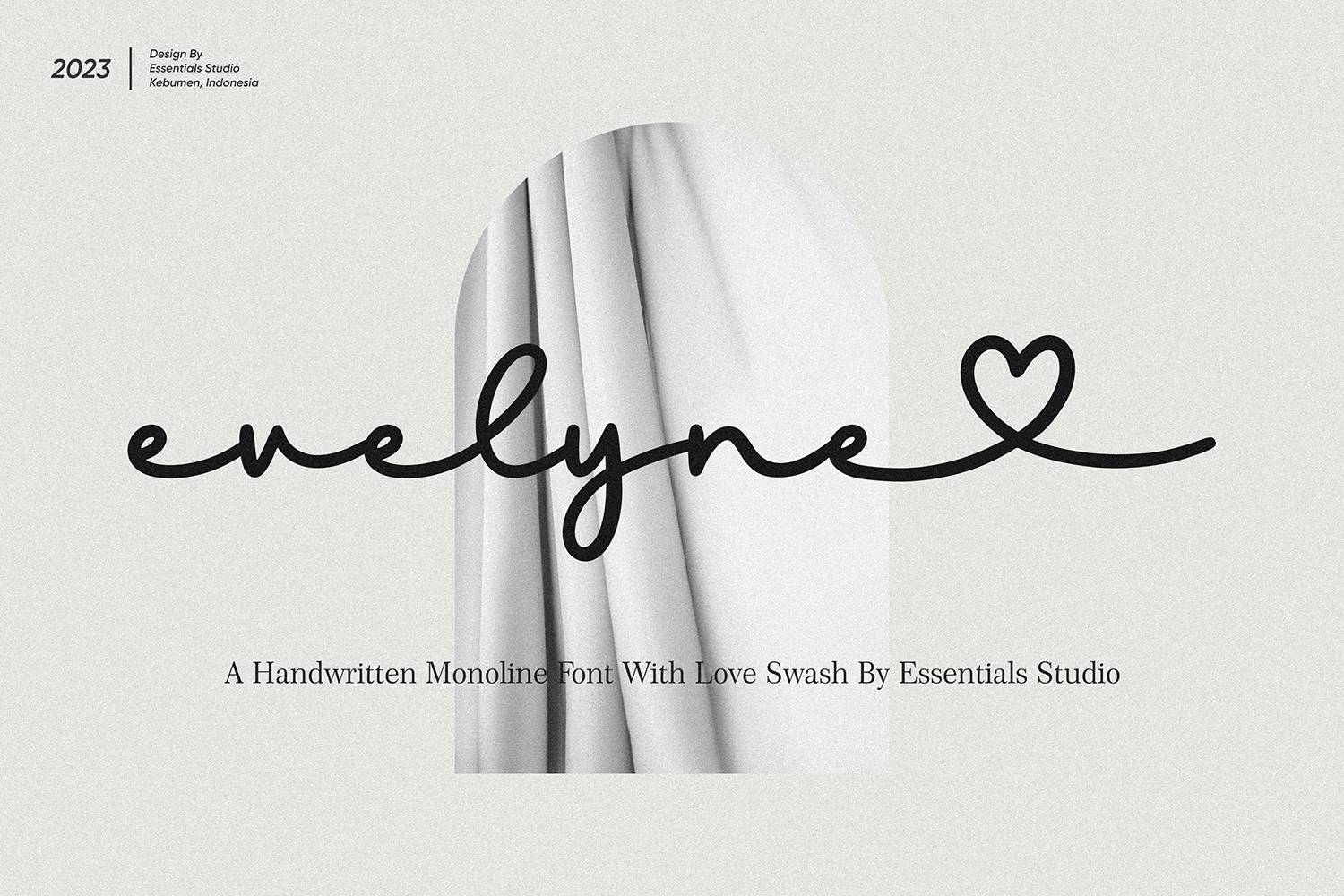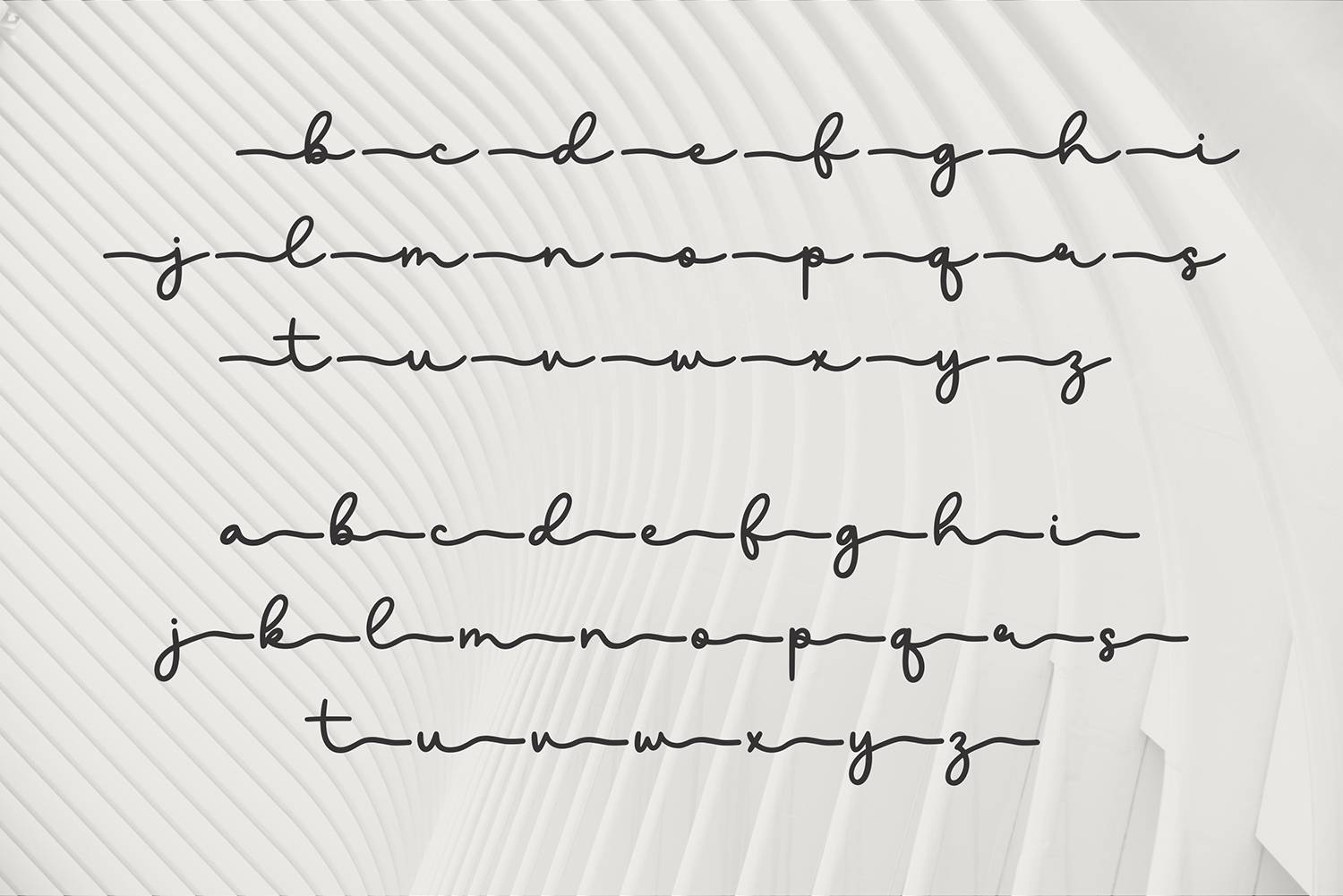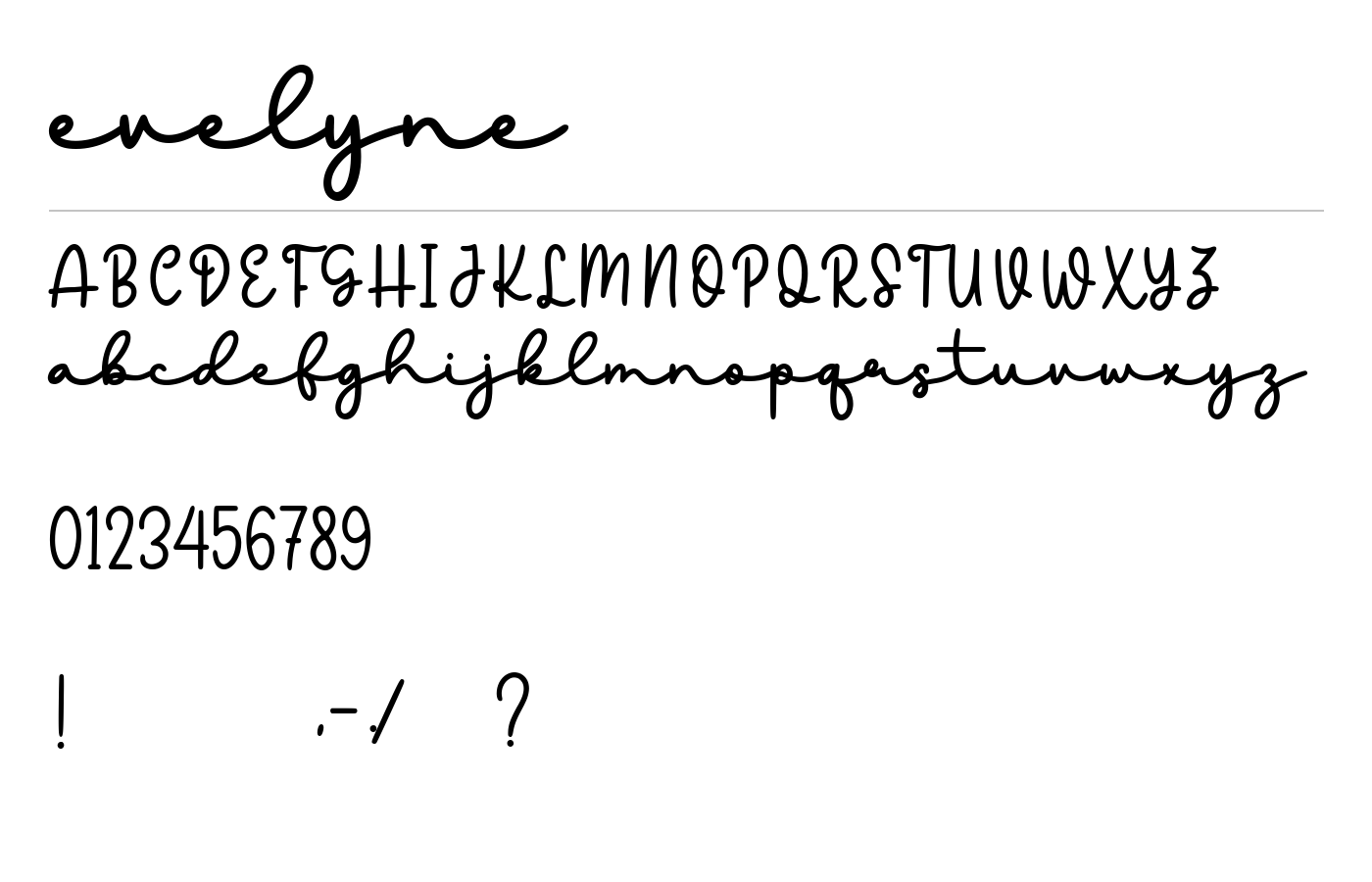
Evelyne is a playful and elegant handwritten script font with a casual, friendly vibe. Its slender, evenly weighted strokes and tall, narrow letterforms give it a clean but personal feel, making it ideal for invitations, branding, and creative projects that want to convey warmth and approachability. This font works well where a touch of charm and individuality is needed without sacrificing readability.
Evelyne Font
About Evelyne Font